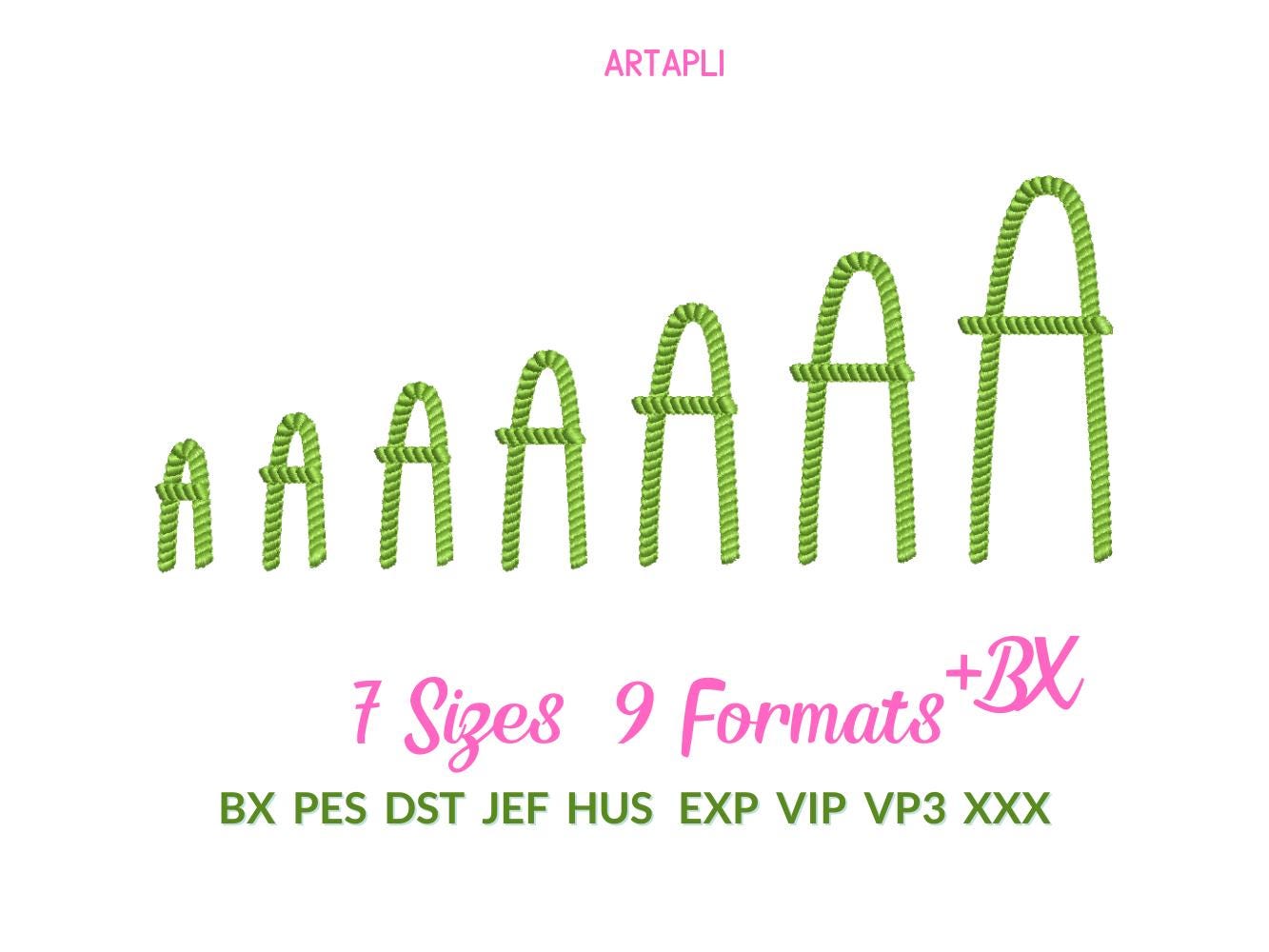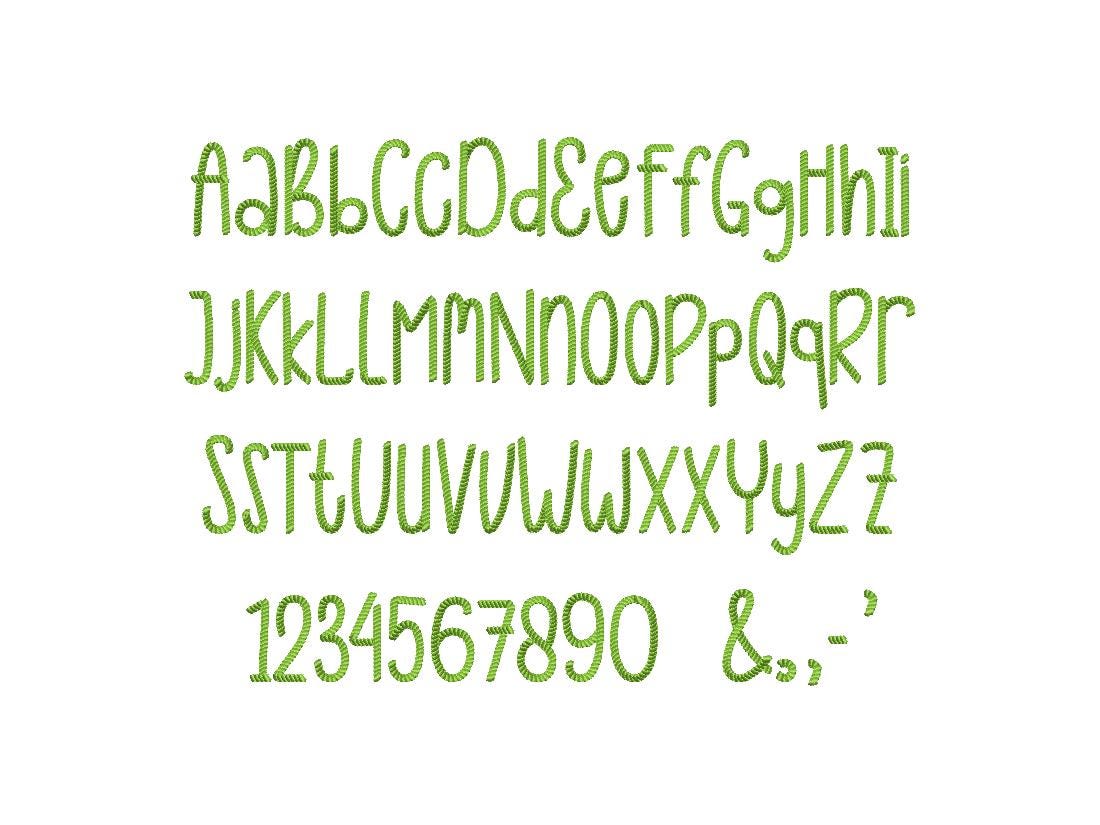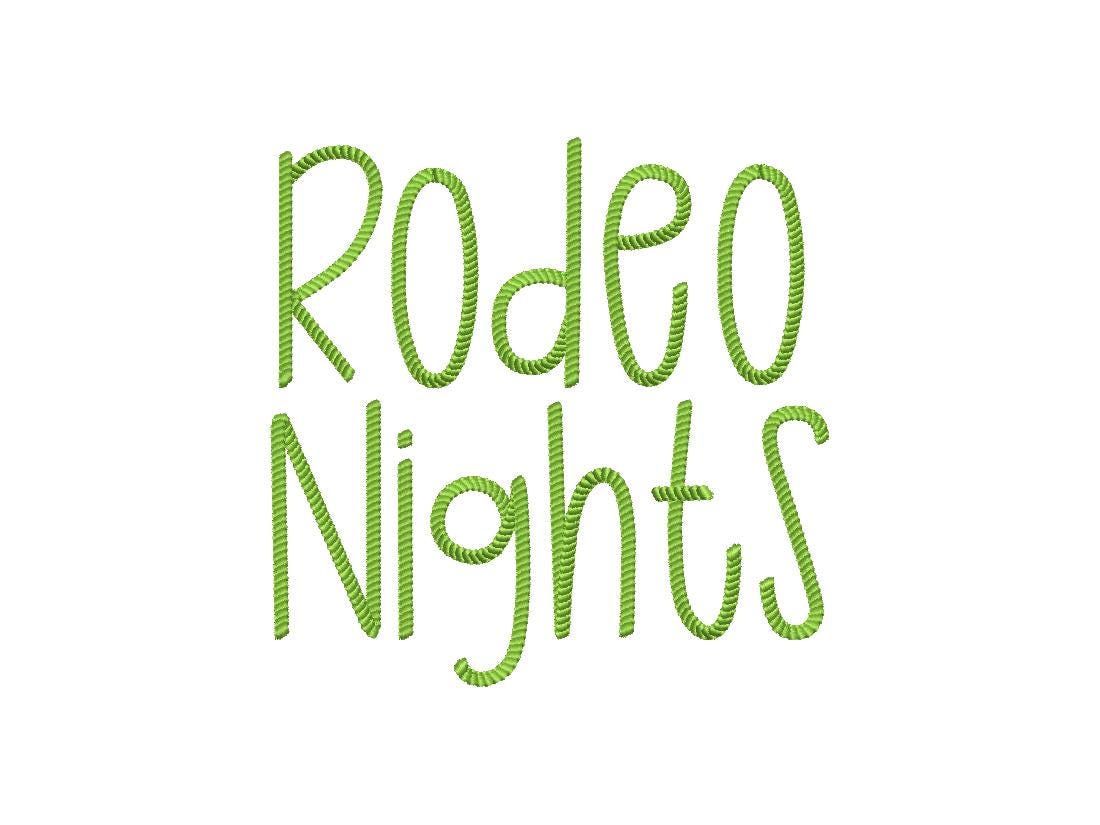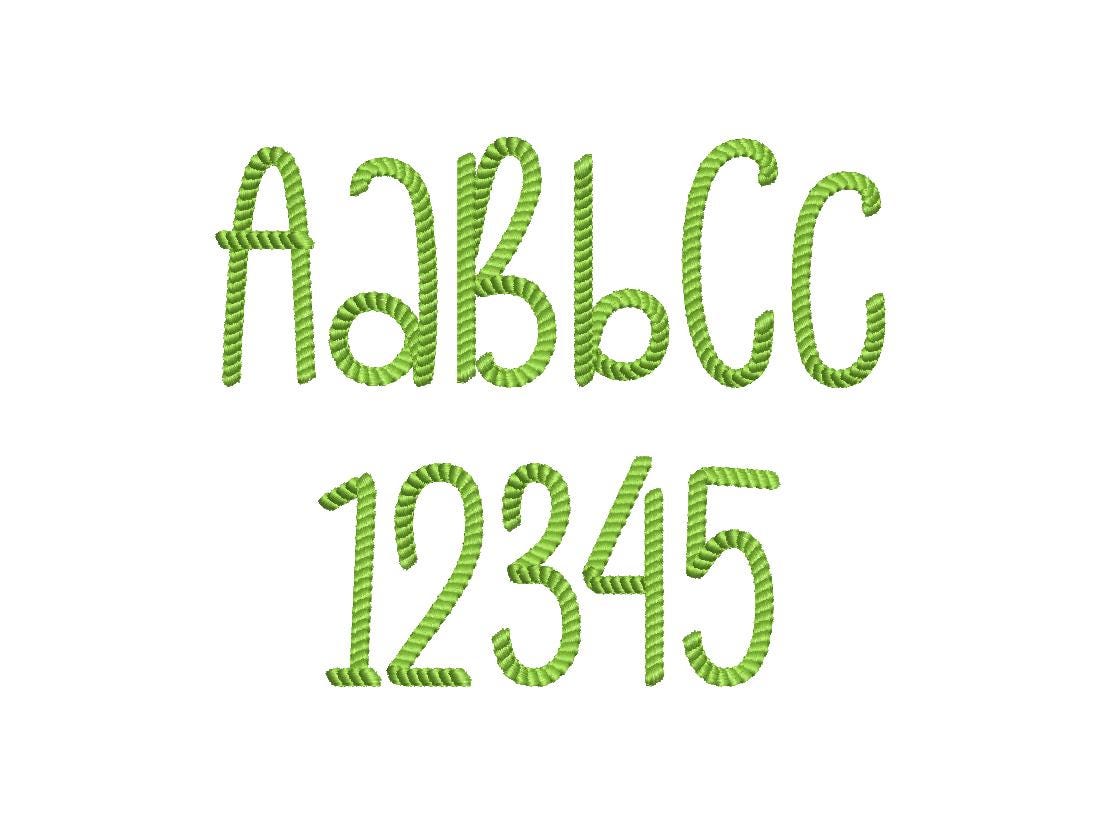
Rope FONT alphabet letters numbers rope stitch marine nautical machine embroidery designs assorted sizes cowboy boy cowgirl monogram, BX included
Entire alphabet uppercase and lowercase letters, numbers, and punctuation.